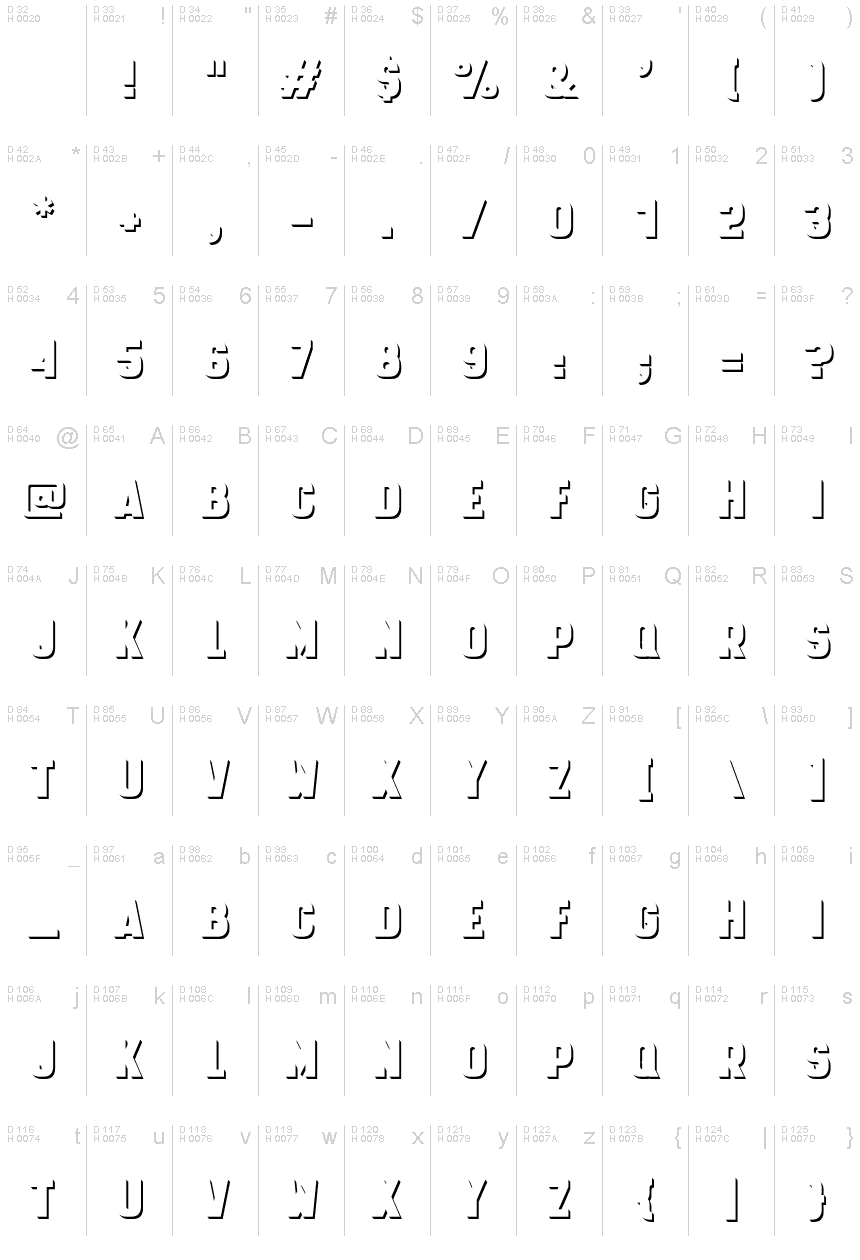
HyperSuperRegular3D
Hyper Super 3D is an extraordinary sans serif font designed by Bisou. With its extra-bold weight and condensed width, this font commands attention and makes a bold statement. Its sleek and modern style is perfect for branding projects that require a futuristic look, such as technology companies or gaming studios.
The three-dimensional effect adds depth and dimension to any design, making it suitable for advertising campaigns or product packaging that needs to stand out from the crowd. Hyper Super 3D is also an excellent choice for movie titles or poster designs, adding a touch of excitement and drama.